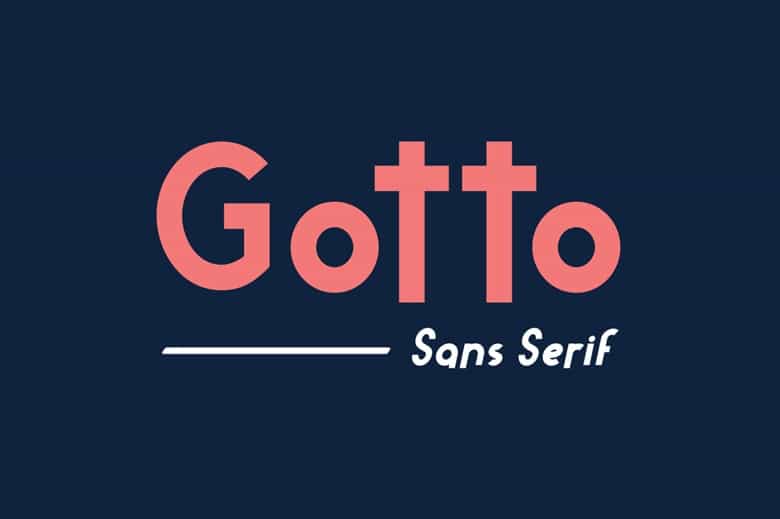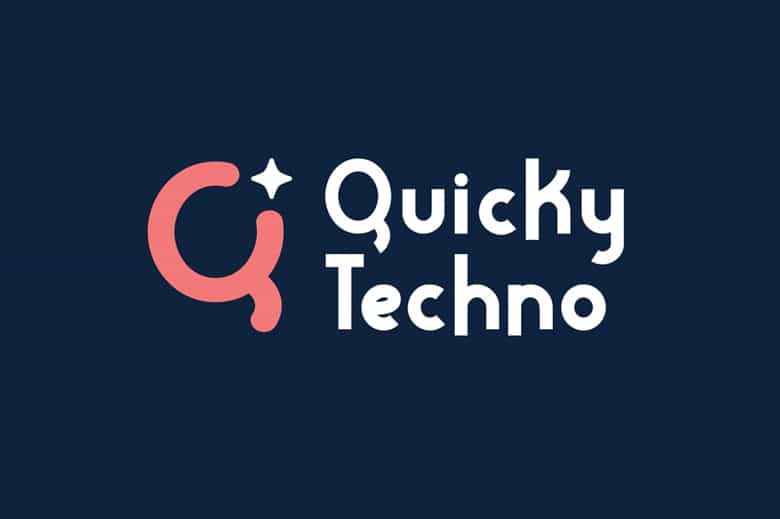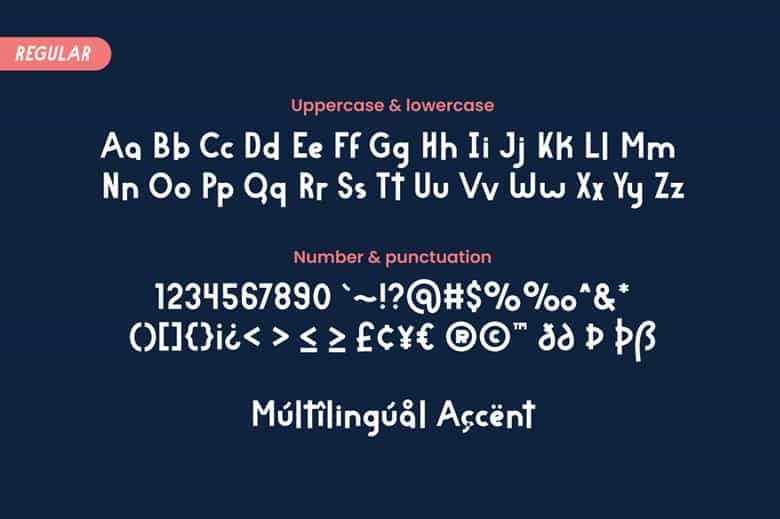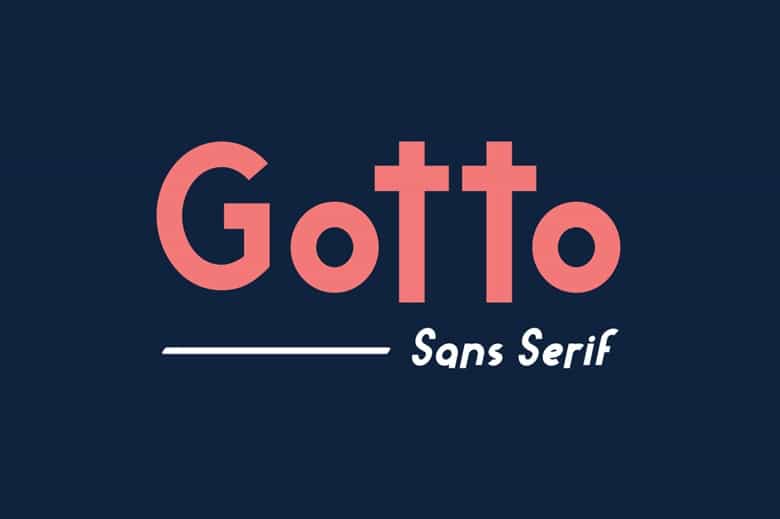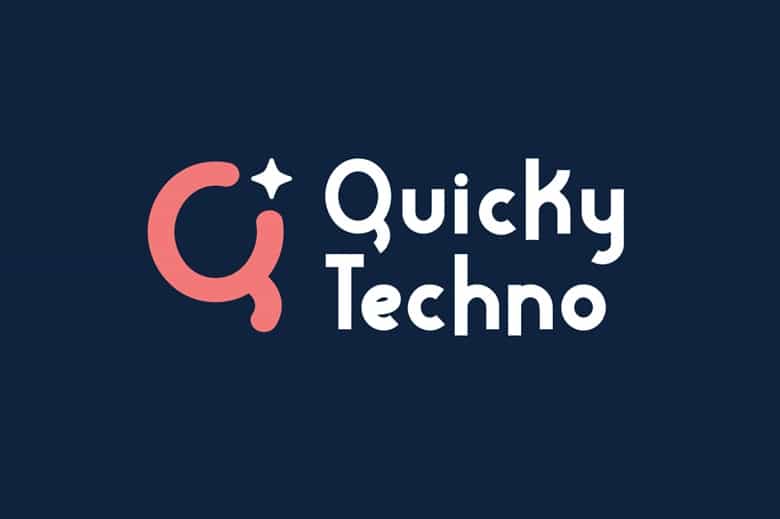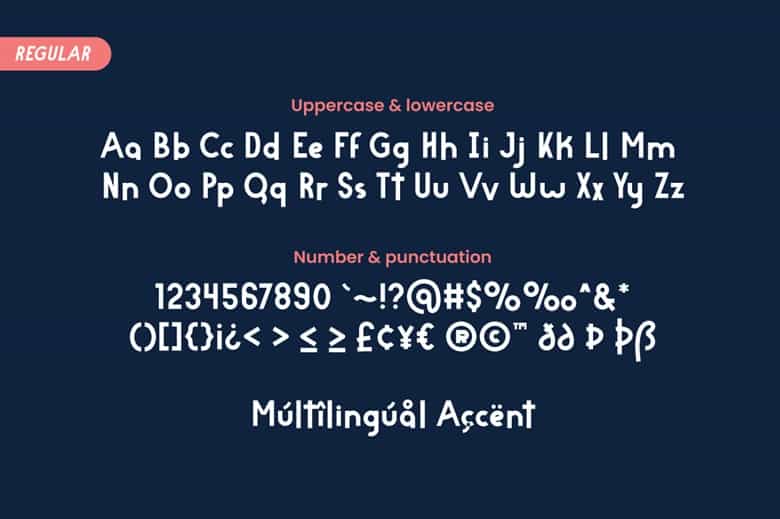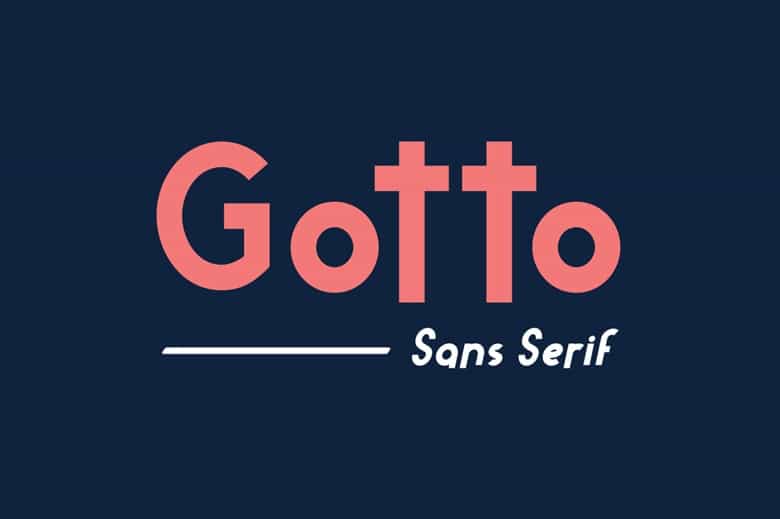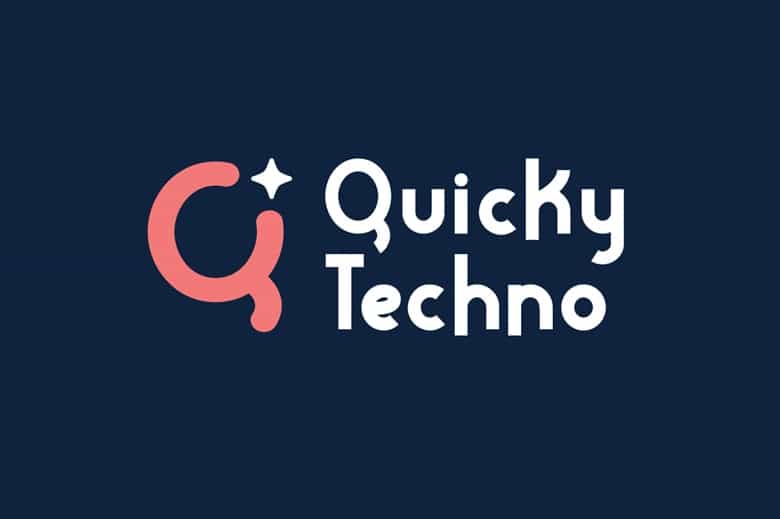
Gotto Font
Gotto is a new sans serif typeface that is simple and elegant. Its clean and simple design and lines make it usable in a myriad of uses, headlines and body text. The proportions are perfect, and the forms are geometric, which makes Gotto a classic design and a modern one. Gotto fits any design work.